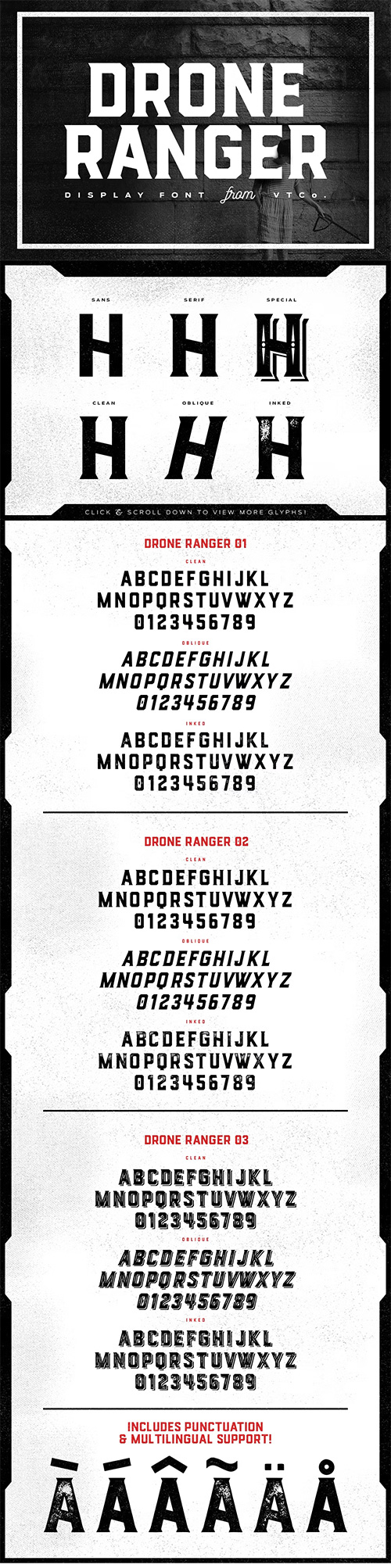
Drone Ranger is a geometric display family that includes 9 various styles for your designing needs.
Included in the family is a Sans version, a Serif version, and a Special Decorative version,
and each of these have their own clean, oblique, and inked styles.